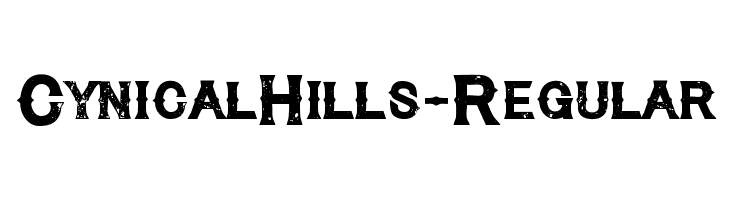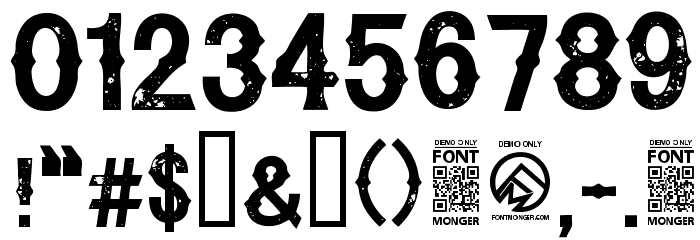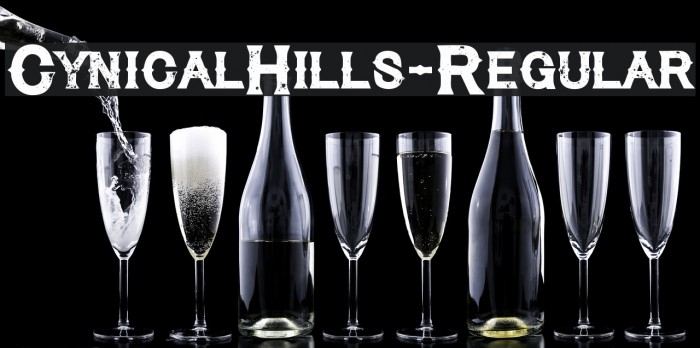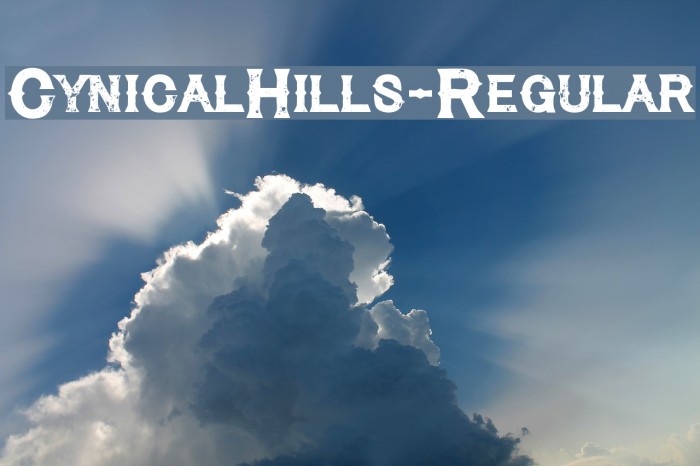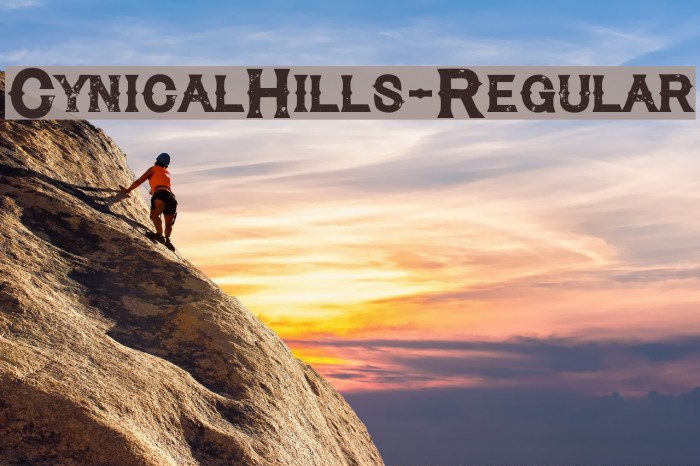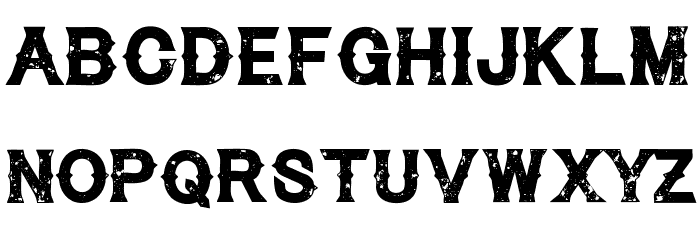
CynicalHills-Regular Font
CynicalHills-Regular Description
This font features a rugged, distressed style with a bold and impactful presence. Each character appears weathered, giving it a vintage and grunge aesthetic. The uppercase letters are prominent and carry a sense of strength and boldness, while the numbers and special characters maintain the same distressed texture. The font's unique appearance makes it stand out, ideal for projects that require a touch of edginess and character. Its rough edges and textured look suggest a sense of history and depth, making it suitable for creative and artistic designs.
A bold, distressed font with a vintage, grunge aesthetic from Uncategorized fonts.
- Proposed Projects: Ideal for posters, album covers, branding for edgy products, and vintage-themed designs.
- Overall Style: Vintage, Grunge